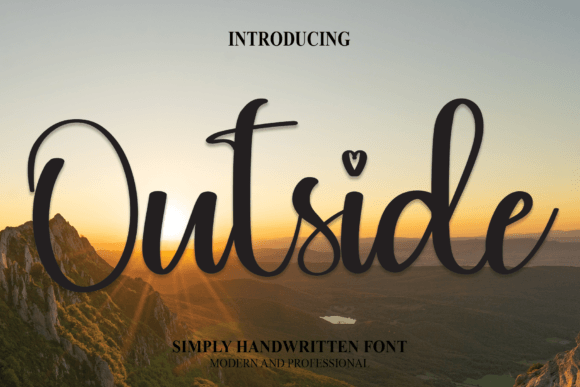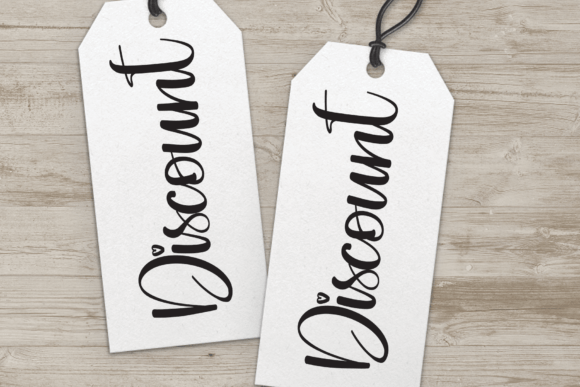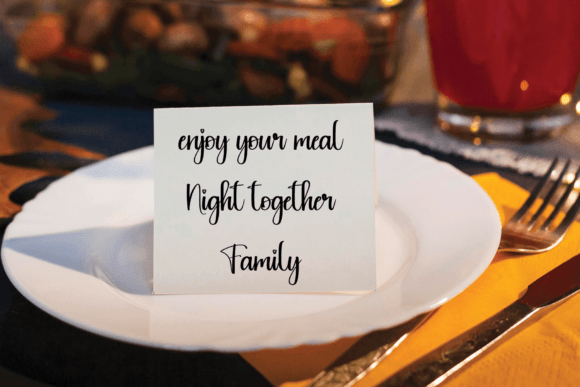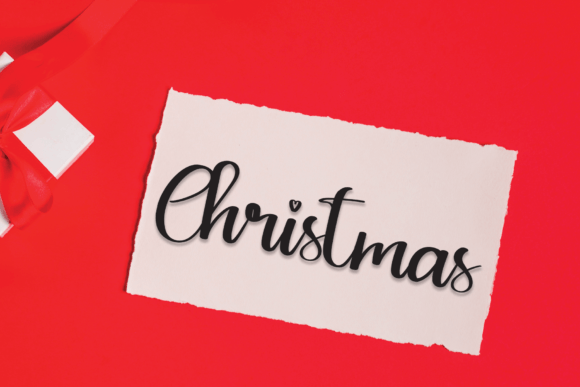
Outside Font
Outside Handwritten Font – Fun and Friendly Script
The Outside Handwritten Font is a cheerful and stylish typeface created to bring warmth and personality to your projects. With its smooth handwritten strokes and approachable style, it adapts seamlessly to personal and professional use. Whether you’re designing invitations, posters, or social media content, this font adds a friendly and creative touch.
A Script with Playful Personality
The Outside Handwritten Font blends casual handwritten curves with a youthful, inviting style. Its design feels fun and approachable while maintaining professional clarity. Because of this balance, it works beautifully across both digital and print designs, enhancing your projects with charm.
One of the most popular uses of the Outside Handwritten Font is in invitations and greeting cards. Wedding stationery, birthday cards, and thank-you notes gain a personal and heartfelt feel when created with this script. At the same time, it is an excellent choice for posters, logos, and product packaging, where a handwritten look adds originality and character.
The Outside Handwritten Font adapts effortlessly across many creative applications. From social media graphics and branding to decorative quotes and DIY crafts, it provides a handwritten charm that feels both timeless and versatile. Its flexibility ensures it becomes a reliable tool in your design collection.
Why Designers Love Outside Font
Designers love the Outside Handwritten Font because it combines playfulness with usability. Its handwritten strokes bring projects to life, while its readability ensures professional results. This balance of creativity and practicality makes it a favorite among designers.
In summary, the Outside HandwrittenFont is a fun, friendly, and versatile script typeface. With its approachable handwritten design, quick installation, and wide usability, it is ideal for invitations, crafts, posters, and branding. Don’t miss the chance to download Outside HandwrittenFont and add joyful handwritten charm to your next creative project.